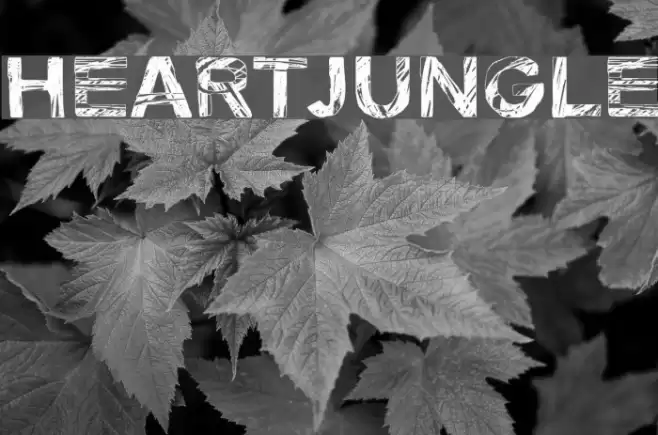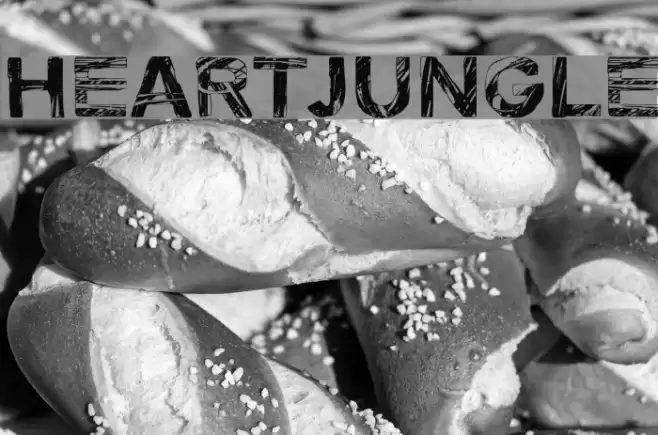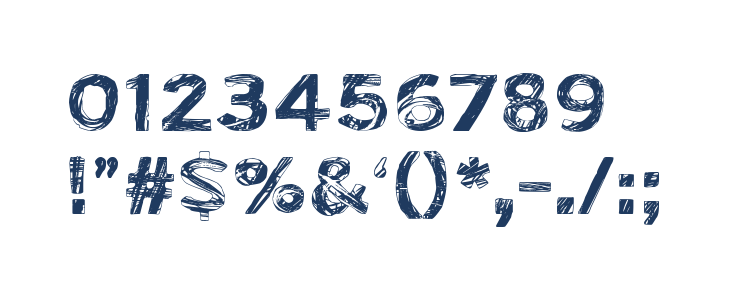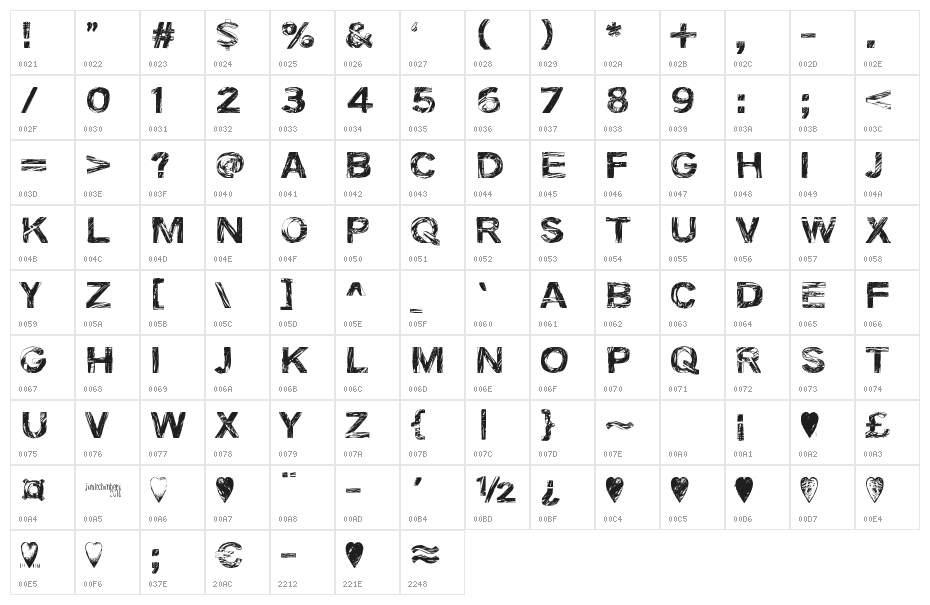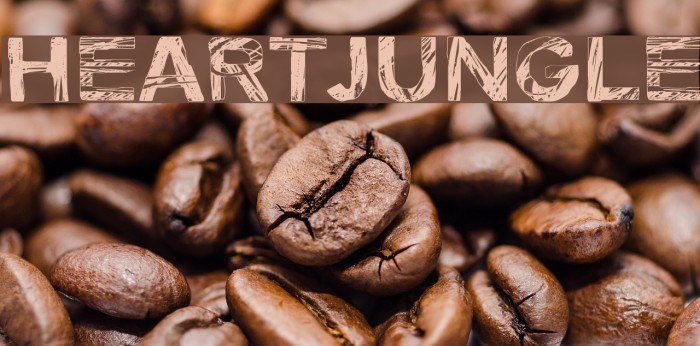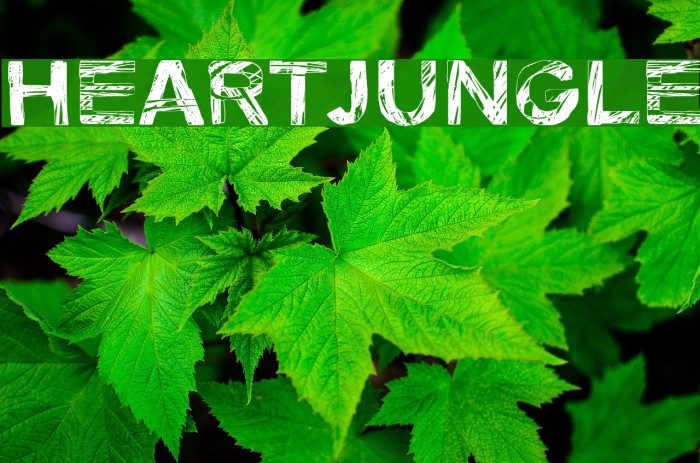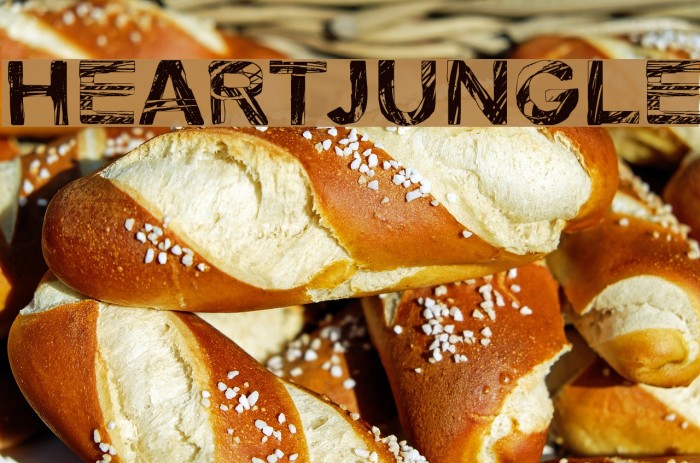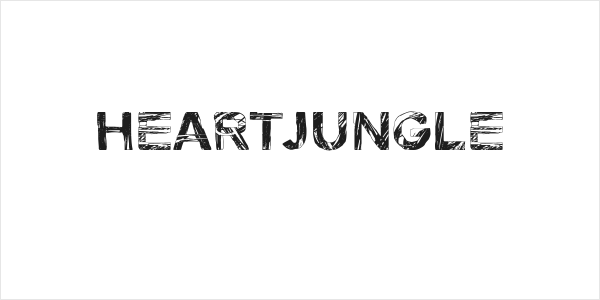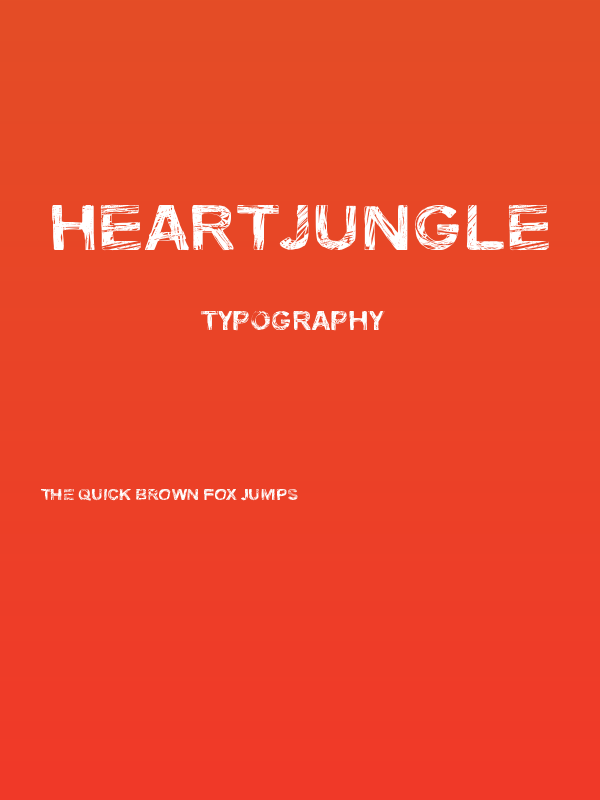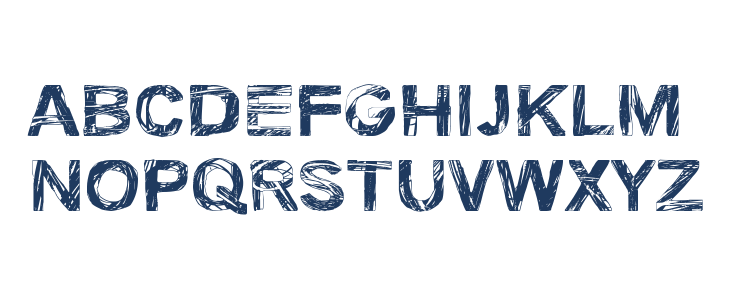
Heartjungle Font
Heartjungle Description
This font features a bold and dynamic style with a sketch-like appearance, giving it a hand-drawn, artistic feel. The characters are filled with irregular, textured strokes that create a sense of movement and energy. This unique design makes it stand out, providing a playful yet edgy aesthetic. The uppercase and lowercase letters maintain consistent proportions, while the numbers and special characters follow the same artistic theme, ensuring a cohesive look across all elements. The font's distinctive style is perfect for creative projects that require a touch of individuality and flair.
A bold, sketch-like font with an artistic, hand-drawn appearance from Uncategorized fonts.
- Proposed Projects: Ideal for posters, album covers, creative branding, and artistic projects.
- Overall Style: Artistic, Edgy